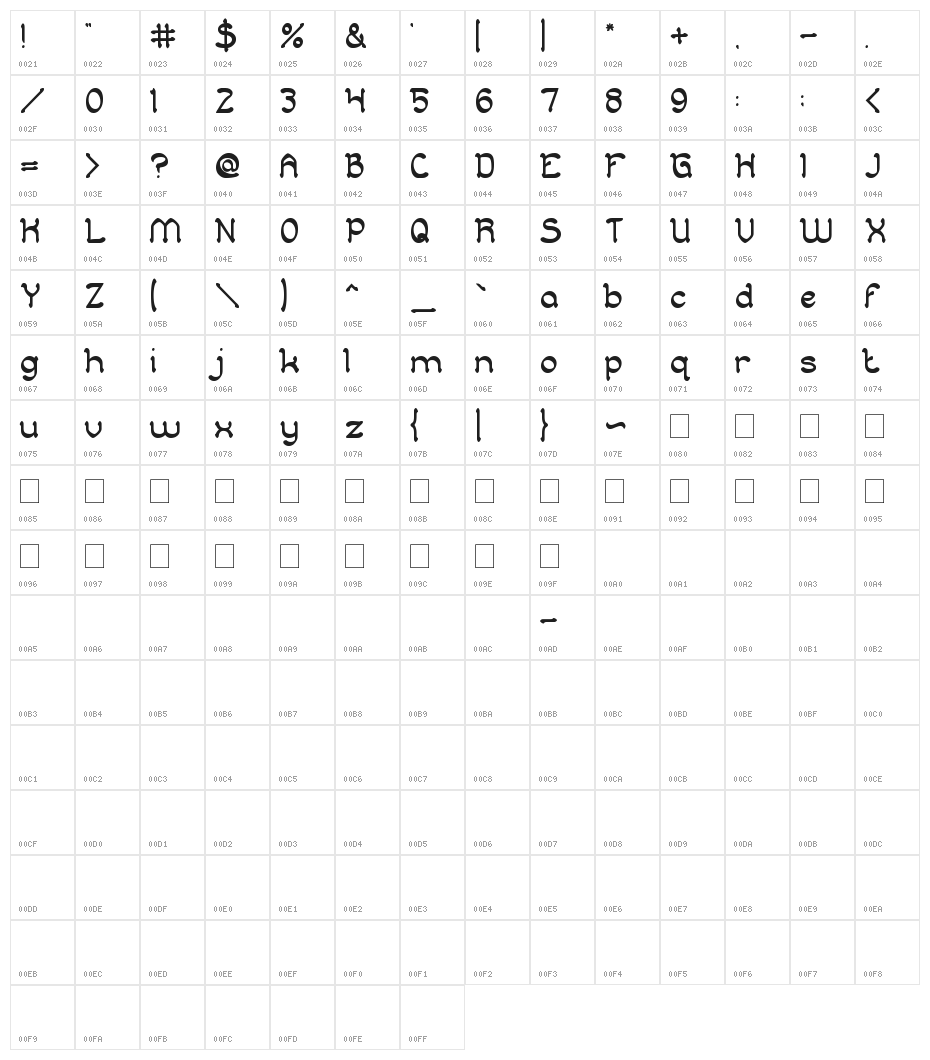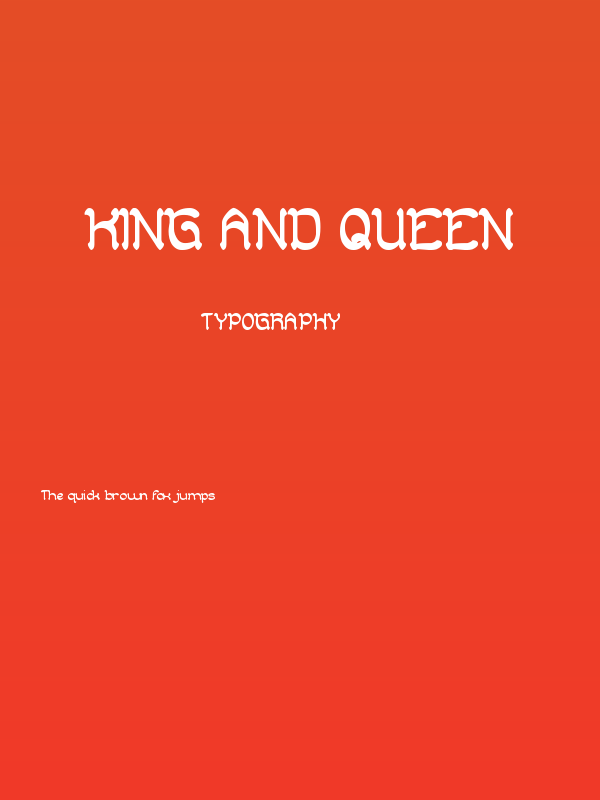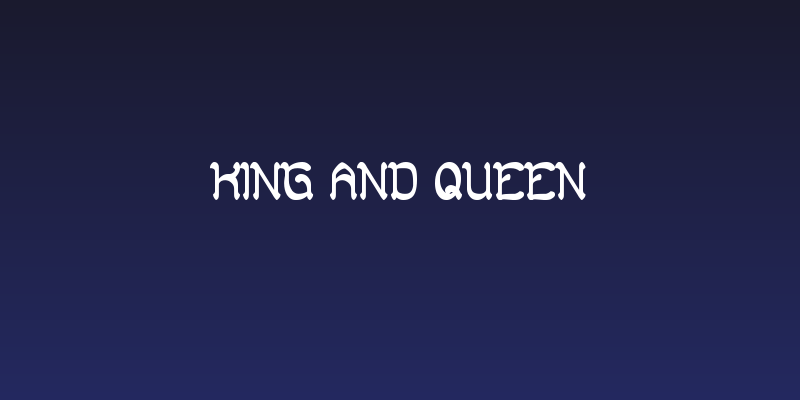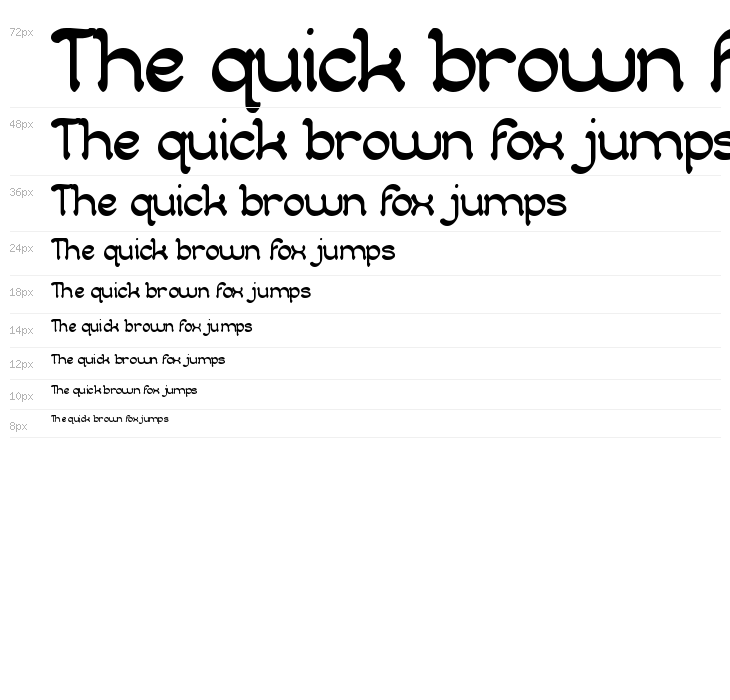
King And Queen Font
King And Queen Description
This font exhibits a playful and whimsical style, characterized by its rounded and slightly exaggerated forms. The letters have a consistent stroke width, giving it a uniform appearance. The uppercase and lowercase letters maintain a cohesive look, with rounded edges and a slight curl at the terminals, adding a touch of elegance. The numerals and special characters follow the same design principles, ensuring a harmonious overall look. This font's unique style makes it stand out, while still being legible and versatile for various design applications.
| Proposed Projects | Ideal for children's books, playful branding, greeting cards, and creative posters. |